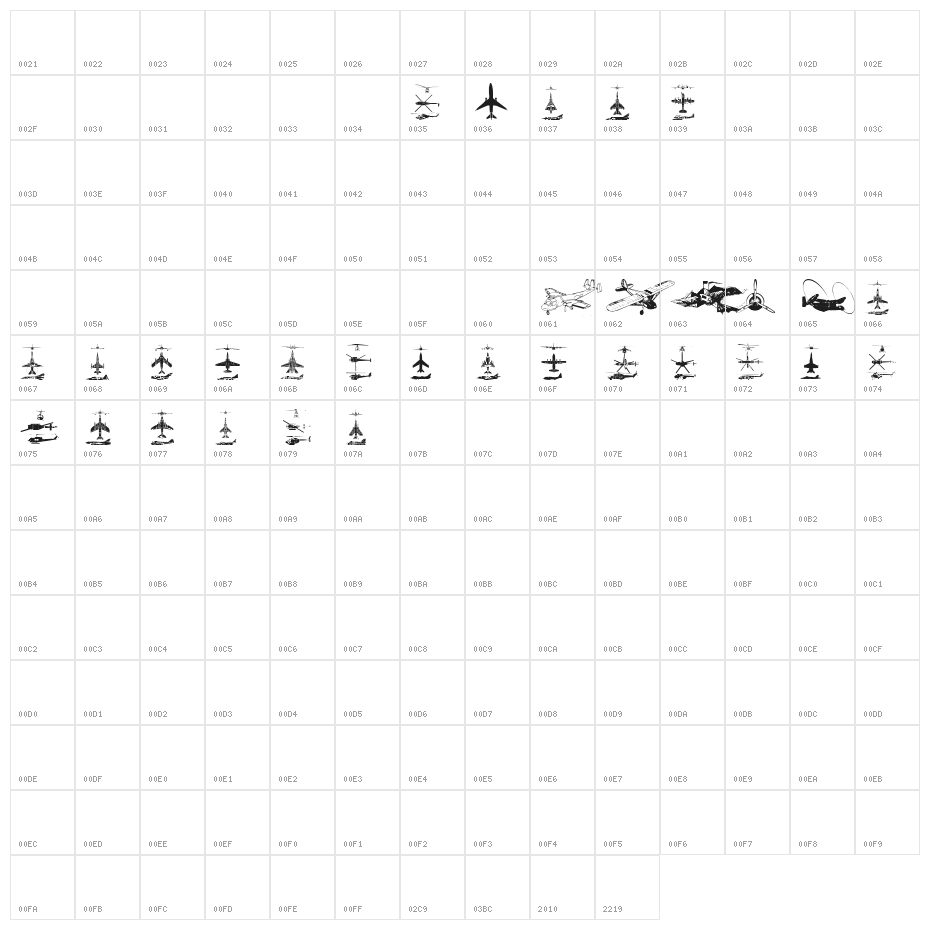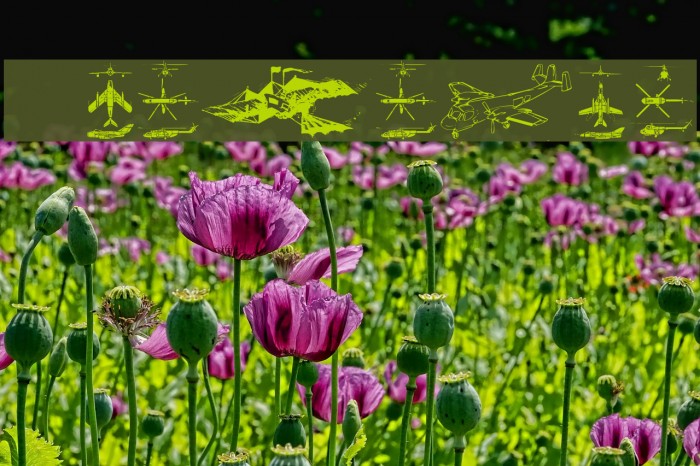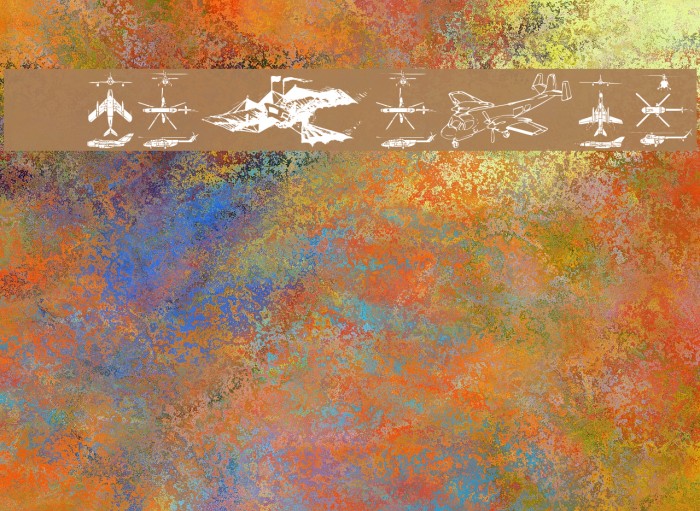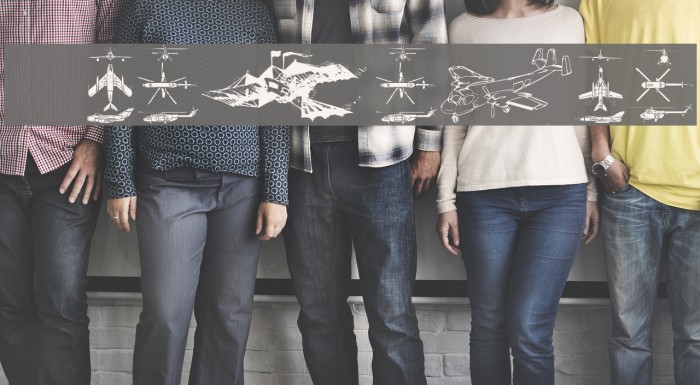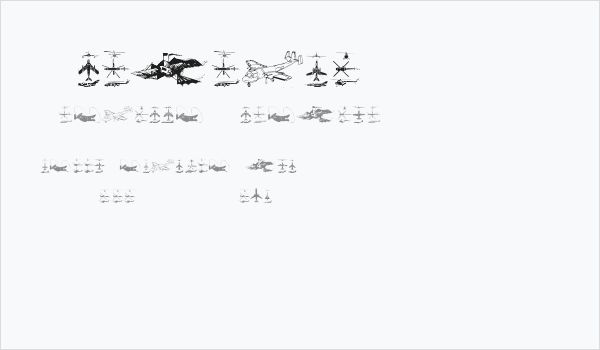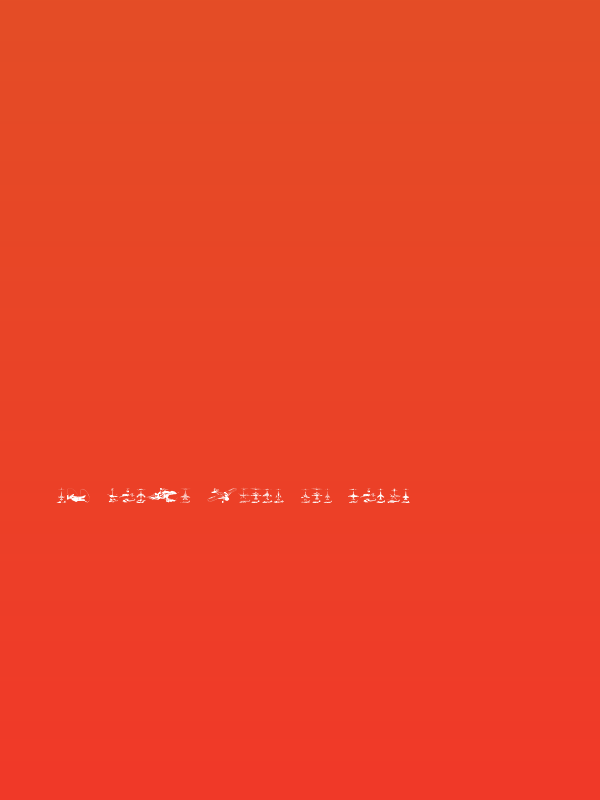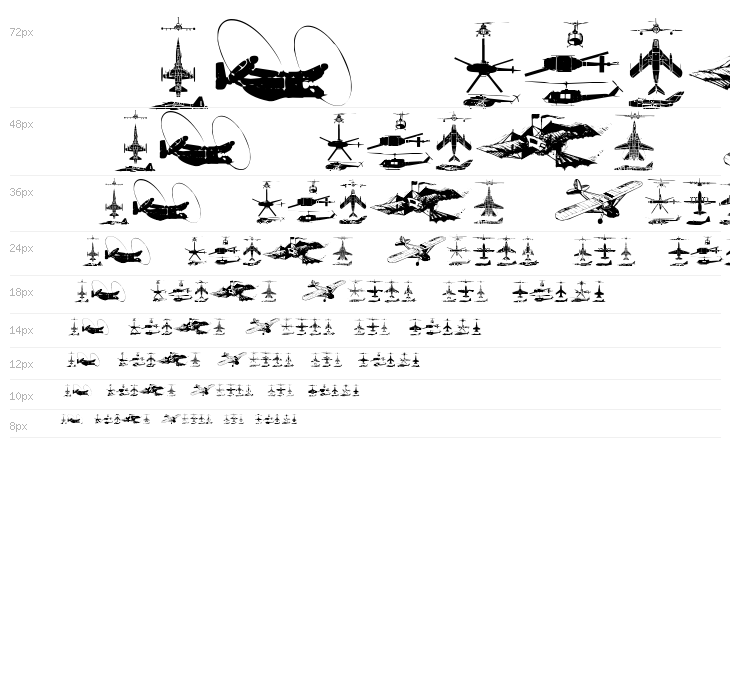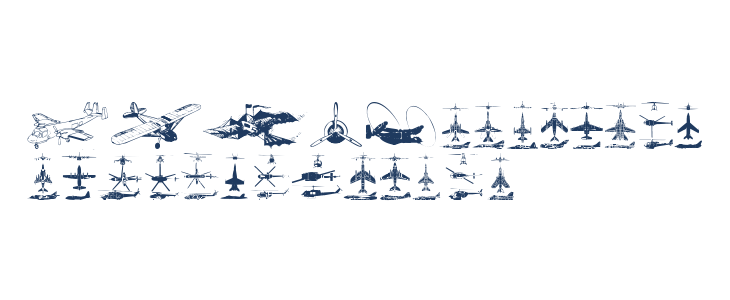
Aircraft2 Font
Aircraft2 Description
A collection of detailed black and white aircraft and helicopter silhouettes, each character representing a different type of aircraft or rotorcraft from various perspectives, primarily top-down or side views. The style is technical and illustrative, resembling blueprint or schematic art.
| Overall Style | Technical, Illustrative, Decorative |
| Use Case | Icons, Themed graphics, Educational charts, Posters |
| Proposed Projects | Aviation posters, educational materials, infographics, technical manuals, themed invitations, model kit packaging. |